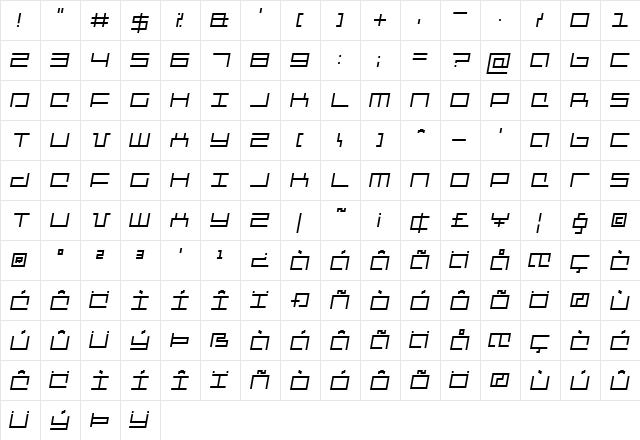
Mechanic Italic Font Preview
Mechanic Italic
Mechanic Italic Font Details
| Designer | Andreas Nylin |
Design Context for Mechanic Typeface
Mechanic takes a measured approach to typography — its balanced proportions and neutral character make it a reliable workhorse for both digital and print work. Its italic angle brings a sense of urgency and motion to the letterforms.